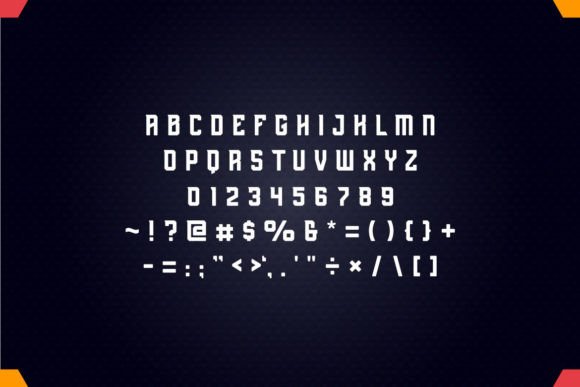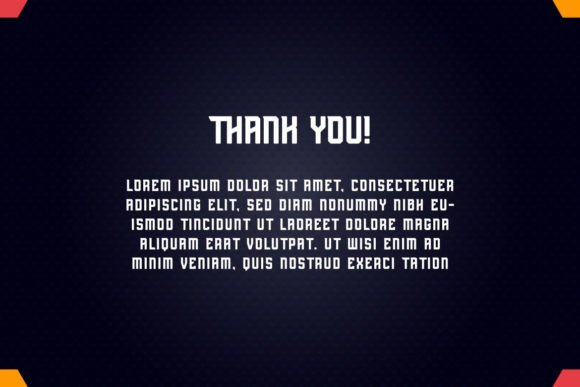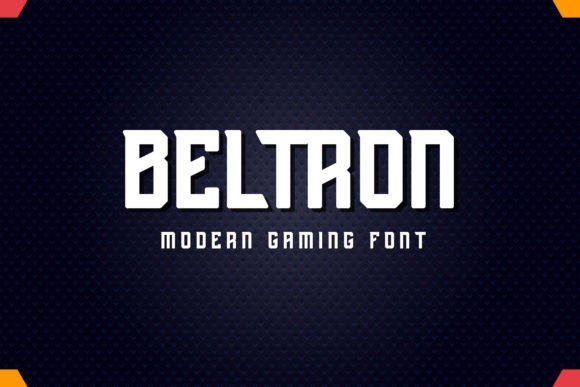
The Ultimate Game-Changer: Beltron Font Review and Guide
I’ll never forget the time I was working on a gaming project, and my client asked me to create a bold, eye-catching title that would grab the audience’s attention. I scoured the internet for the perfect font, but nothing seemed quite right. That was until I stumbled upon the Beltron font. **This modern and cool gaming display font** has been a game-changer for my design projects, and I’m excited to share my experience with you.
• ✅ Versatility: Beltron font is perfect for a wide range of topics, from gaming to tech, and even lifestyle projects.
• ✅ Legibility: The font is incredibly clear, even at small sizes, making it perfect for titles, headings, and body text.
• ✅ Style Options: Beltron comes with a range of OpenType features, glyphs, and stylistic alternates, giving you plenty of creative freedom.
• ✅ Modern Aesthetic: The font has a sleek, modern design that will elevate any project.
• ⚠️ Limited Serif Options: Beltron is primarily a sans-serif font, which might limit its use for projects requiring traditional serif fonts.
• ⚠️ Glyph Support: While the font comes with a range of glyphs, some users might find the selection limited for certain languages or special characters.
The Story Behind Beltron
Beltron font was designed with the gaming community in mind. The creator, a passionate gamer and designer, wanted to craft a font that would capture the essence of modern gaming: bold, dynamic, and attention-grabbing. The result is a font that’s not only perfect for gaming projects but also versatile enough for a wide range of applications.
Q: What type of projects is Beltron font best suited for?
A: Beltron font is ideal for gaming, tech, and lifestyle projects, but its versatility makes it suitable for a wide range of applications.
Q: Does Beltron font come with a range of language support?
A: While Beltron font supports a range of languages, some users might find the glyph selection limited for certain languages or special characters.
Q: Can I use Beltron font in both digital and print projects?
A: Absolutely! Beltron font is designed to be versatile and can be used in both digital and print projects, from social media graphics to business cards and brochures.